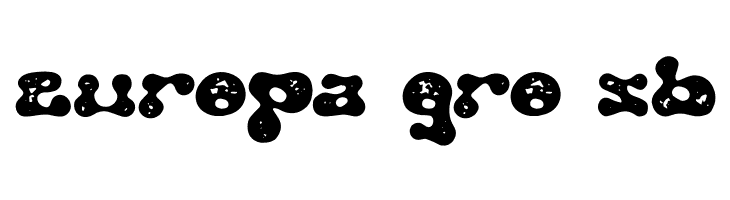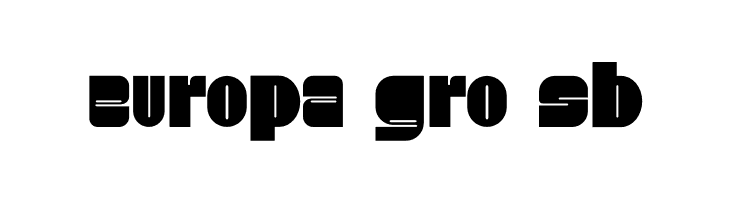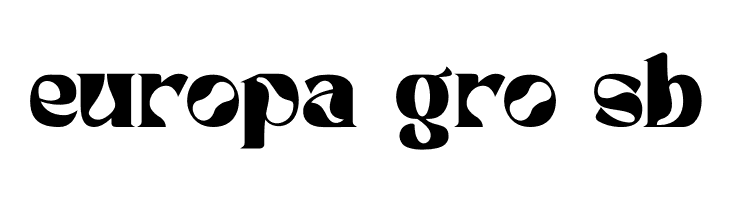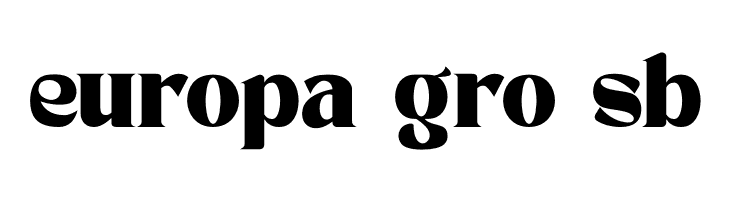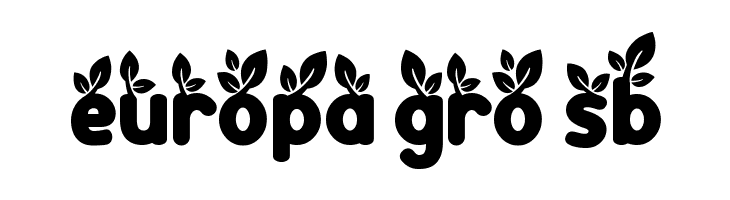
( Fonts by PutraCetol Studio )
A bold, geometric font with stylized, energetic characters.
( Fonts by PutraCetol Studio )
A textured, playful font with a bubbly, organic design.
( Fonts by PutraCetol Studio )
A playful, bold font with rounded, blob-like characters.
( Fonts by PutraCetol Studio )
A bold, playful font with rounded edges and a chunky appearance.
( Fonts by PutraCetol Studio )
A bold, decorative font with playful, swirling elements.
( Fonts by PutraCetol Studio )
A bold, vintage-inspired font with a playful, retro aesthetic.
( Fonts by PutraCetol Studio )
A bold, geometric font with an industrial and modern aesthetic.
( Fonts by PutraCetol Studio )
A bold, decorative font with sharp angles and smooth curves, ideal for striking designs.
( Fonts by PutraCetol Studio )
A bold, high-contrast decorative font with unique curves and angles.
( Fonts by PutraCetol Studio )
A playful, decorative font with candy-like patterns and bold outlines.
( Fonts by PutraCetol Studio )
A playful, bold font with bubble-like letters and star cutouts, perfect for creative projects.
( Fonts by PutraCetol Studio )
A playful, floral-accented decorative font with bold, rounded characters.
( Fonts by PutraCetol Studio )
A playful, decorative font with leaf accents and a whimsical script style.
( Fonts by PutraCetol Studio )
A bold, decorative font with web-like patterns, perfect for creative projects.
( Fonts by PutraCetol Studio )
A bold, textured font with a distressed, vintage look and playful, curly style.
( Fonts by PutraCetol Studio )
A sophisticated, elegant handwritten font with flowing cursive strokes and graceful curves.
( Fonts by PutraCetol Studio )
A playful, jester-themed decorative font with bold, rounded characters.
( Fonts by PutraCetol Studio )
A bold, playful font with chunky, whimsical characters.
( Fonts by PutraCetol Studio )
A playful, palm tree-topped decorative font with a tropical vibe.
( Fonts by PutraCetol Studio )
A playful, umbrella-themed decorative font with bold, rounded characters.
( Fonts by PutraCetol Studio )
A playful, vegetable-themed decorative font with bold, quirky characters.
( Fonts by PutraCetol Studio )
A whimsical, vegetable-themed decorative font with bold, textured characters.
( Fonts by PutraCetol Studio )
A decorative font with leaf-inspired characters, perfect for nature-themed designs.
( Fonts by PutraCetol Studio )
A bold, decorative font with leaf-patterned characters.
( Fonts by PutraCetol Studio )
A bold, rounded font with smooth curves and a playful style.
( Fonts by PutraCetol Studio )
A bold, decorative font with leaf motifs integrated into each character.
( Fonts by PutraCetol Studio )
A playful and whimsical font with decorative, leaf-like patterns inside bold, rounded characters.
( Fonts by PutraCetol Studio )
A playful, monster-themed font with bold, rounded characters and quirky details.
( Fonts by PutraCetol Studio )
A playful, dinosaur-themed decorative font with bold, rounded characters and integrated footprints.
( Fonts by PutraCetol Studio )
A playful, dinosaur-themed font with bold, patterned characters.
( Fonts by PutraCetol Studio )
A playful, dinosaur-themed decorative font with bold, rounded characters.
( Fonts by PutraCetol Studio )
A bold, rounded font with a playful and chunky style.
( Fonts by PutraCetol Studio )
A playful, decorative font with a ruler-like pattern and hand-drawn aesthetic.
( Fonts by PutraCetol Studio )
A bold, playful font with integrated paper plane motifs, perfect for creative projects.
( Fonts by PutraCetol Studio )
A bold, decorative font with an educational theme, featuring book symbols beneath each character.